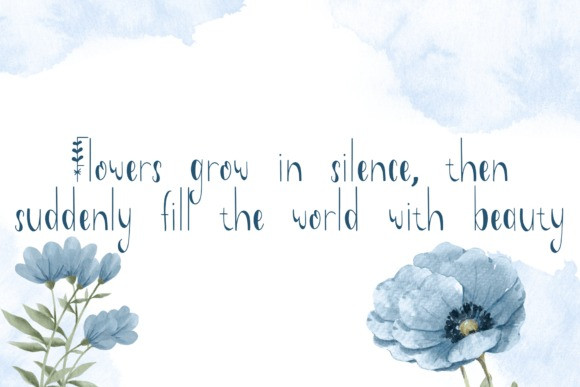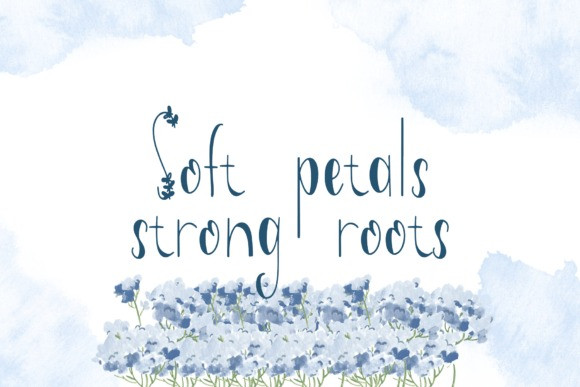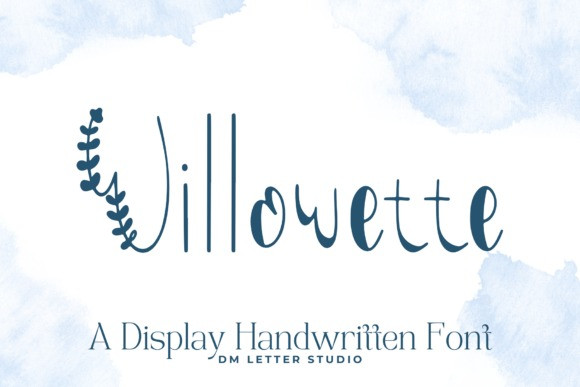
Willowette Script Font
Willowette Script Font brings soft, romantic charm to every title. Letters feel flowing and graceful, with gentle curves that stay clear at any size. Because the strokes are balanced, your words read fast on invitations, logos, packaging, stickers, and thumbnails. Use it for weddings, boutiques, beauty brands, and lifestyle posts. Moreover, Willowette pairs beautifully with modern serifs and clean sans fonts, so layouts stay elegant without effort.
Where Willowette Font shines
Set short phrases like “Save the Date,” a couple’s names, or a boutique logo. Then add fine lines, subtle shadows, or a light foil texture for depth. Since spacing is tuned for headlines, mockups come together in minutes. As a result, you can launch full suites for stationery, gift tags, menus, and social graphics with less editing. Plus, smooth curves keep vinyl cuts and foil stamps crisp.
Fast setup, polished results
Design tips for Willowette Font
Keep copy short and let the letterforms breathe. Pair Willowette headlines with a quiet serif for body text and prices. Meanwhile, add micro-tracking on all caps, or tighten pairs on names for a luxe feel. Because the script is smooth, textured paper, wax seals, and metallic details raise perceived value. However, avoid long sentences on tiny labels. Names, dates, and concise phrases hit hardest.